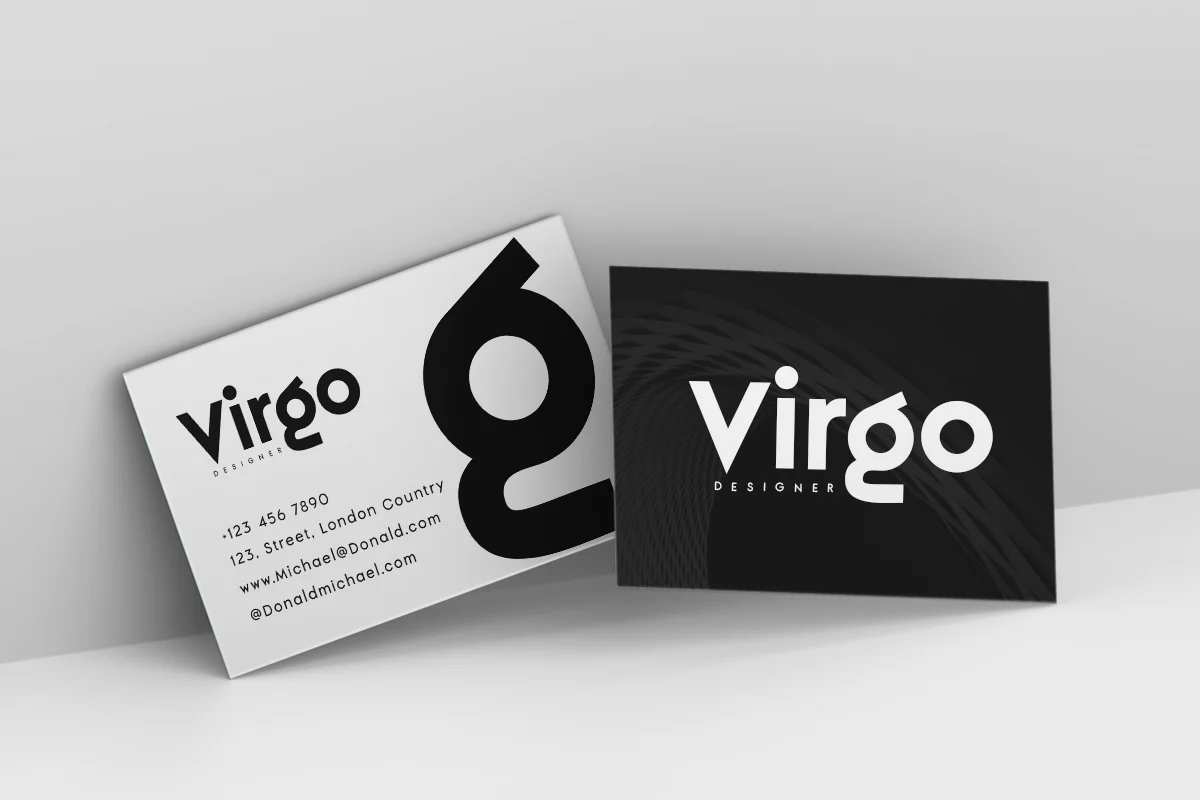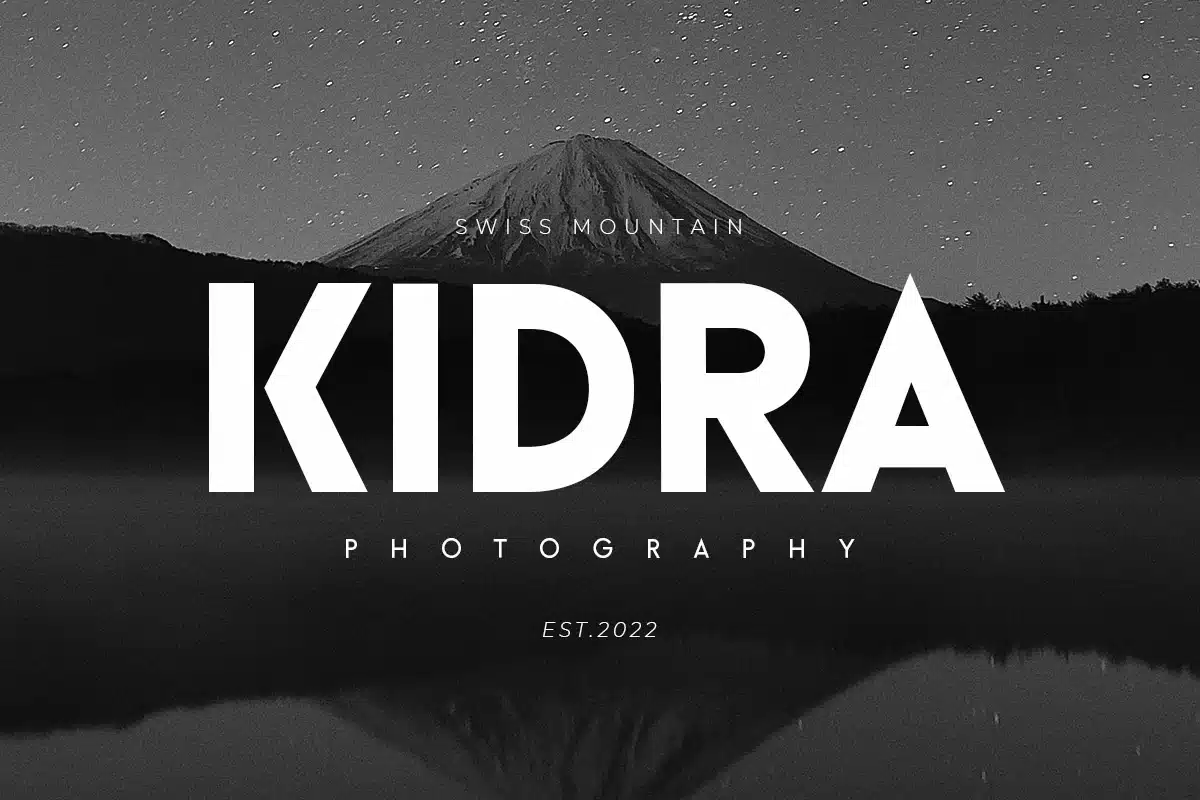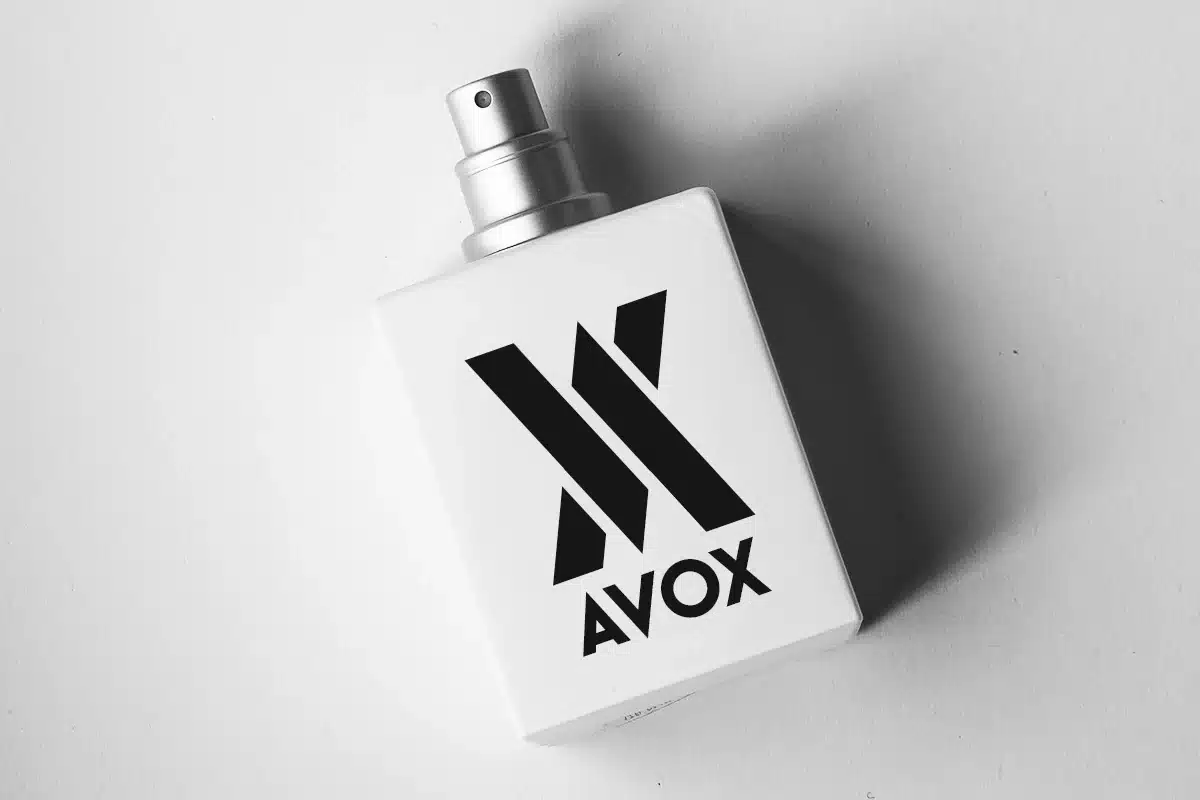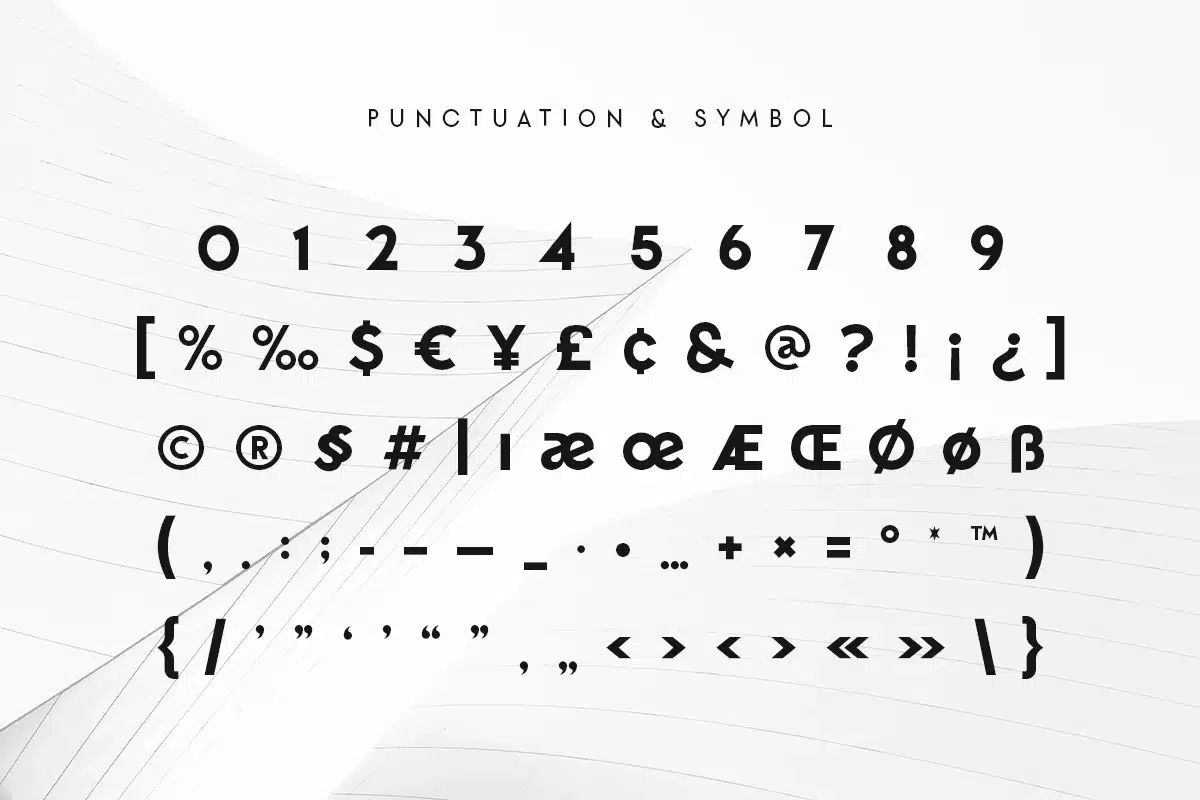
Majer – Modern Logo sans serif Font
Majer is a sans serif font with modern, luxury, elegant, unique and classy-look. This font crafted specials for logo design projects, ready to use on Logo, Branding, Magazine, Social Media, and Many more that needs modern touches.
Majer is also included full set of:
- uppercase and lowercase letters
- multilingual characters
- numerals
- punctuation